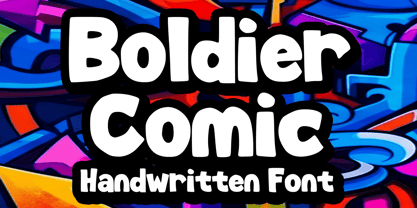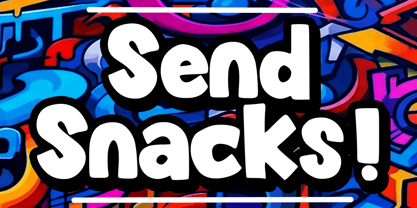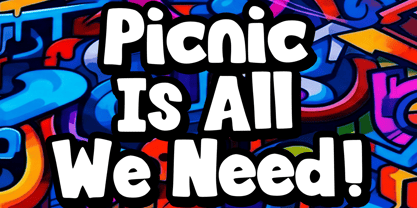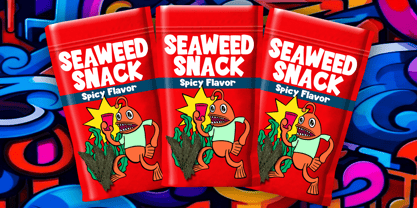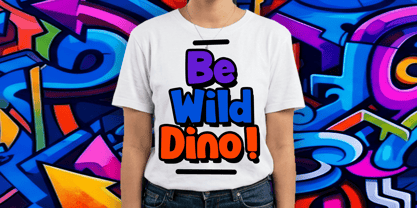
Boldier Comic
Die Schriftfamilie Boldier Comic wurde von Gabriel Valentinus entworfen und von Mvmet veröffentlicht. Boldier Comic enthält 1 Stile. Mehr über diese Familie
Introducing Boldier Comic - a delightfully playful font designed to make your creations pop! This daringly bold, cartoon-inspired display font adds a touch of joy and whimsy to all your creative projects. Its versatility shines through, making it perfect for kids' books, party invitations, and standout t-shirt designs, as well as striking clothing lines. Whether you're looking to infuse charm into greeting cards or seeking the ideal typographic element for your stickers, Boldier Comic is your go-to choice. It's equally suited for eye-catching posters and banners — truly, anything that demands a dash of bold, fun energy! Experience the joy of designing with Boldier Comic and let your creations radiate cheerful vibes!